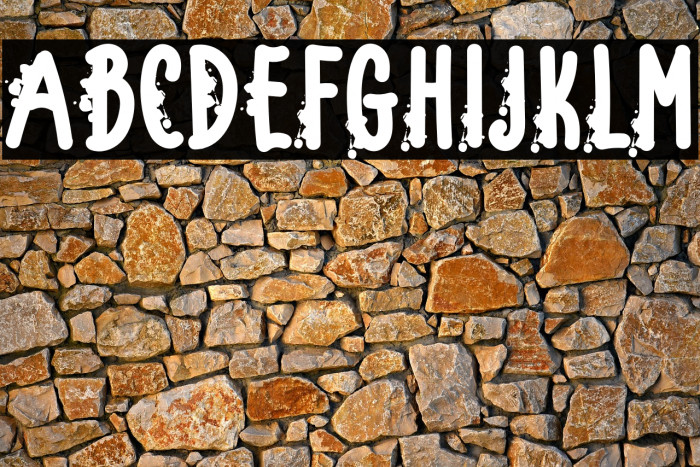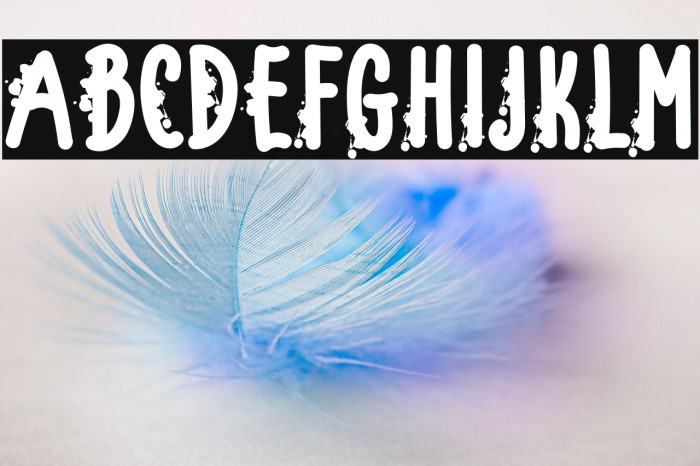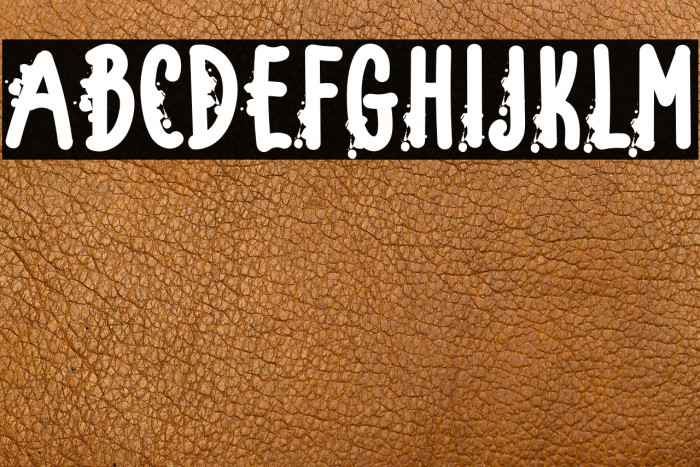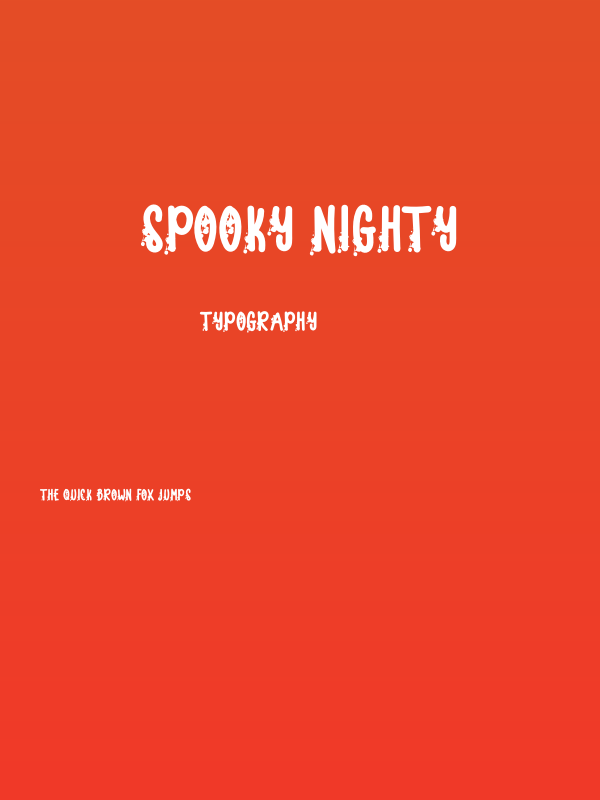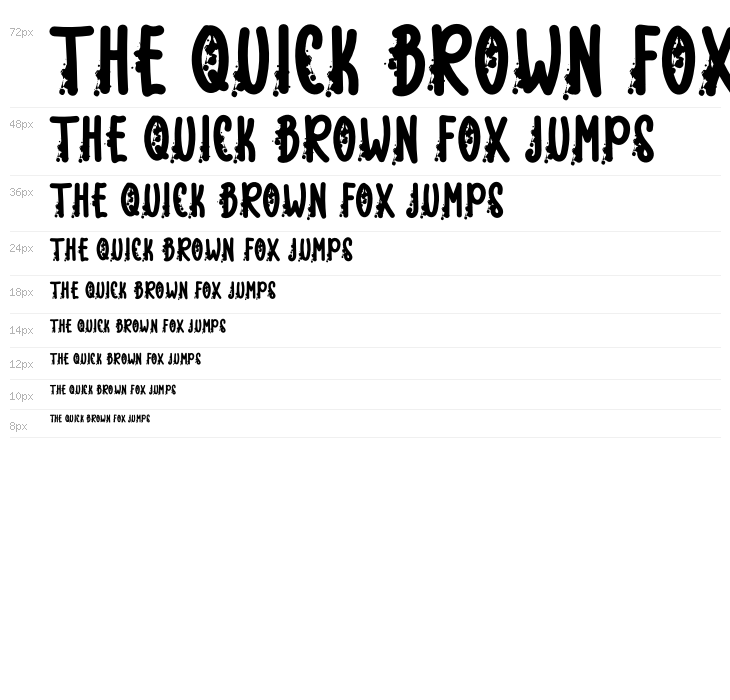
Spooky Nighty Font
Spooky Nighty Description
A playful, decorative display font with irregular, splattered edges and a hand-drawn feel, evoking a spooky or eerie atmosphere. The characters are bold, rounded, and feature unique ink blot-like details, making them visually striking and suitable for thematic designs.
| Overall Style | Decorative, Spooky, Playful |
| Use Case | Headlines, Posters, Themed Logos, Event Titles |
| Proposed Projects | Halloween posters, party invitations, horror-themed graphics, childrenΓ’β¬β’s spooky books, event flyers. |